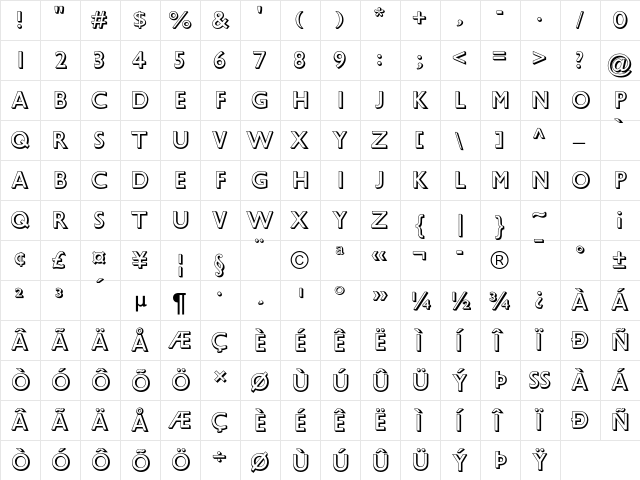
Gill Sans Shadow MT Std Regular
| Designer | Eric Gill |
Design Context for Gill Sans Shadow MT Std Typeface
Gill Sans Shadow MT Std is built around its visual character rather than neutral utility — its distinctive forms are designed to make an impression at display sizes.
Font Pairing: Pair with a clean neutral sans-serif for body copy to let Gill Sans Shadow MT Std's character lead without overwhelming the composition.
Pro Tip: Use Gill Sans Shadow MT Std exclusively at display sizes — it was designed to be seen, not read at length. Let a neutral companion handle body copy.